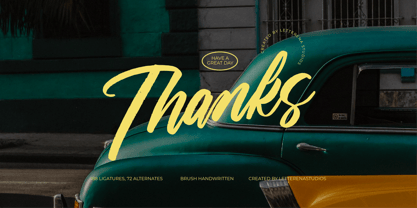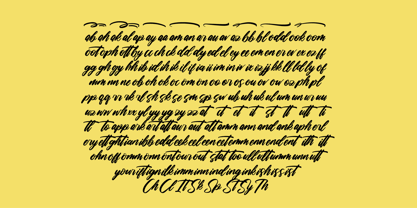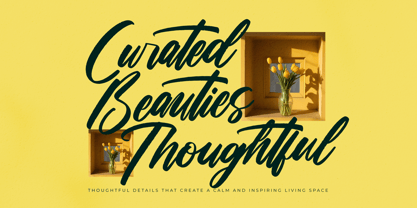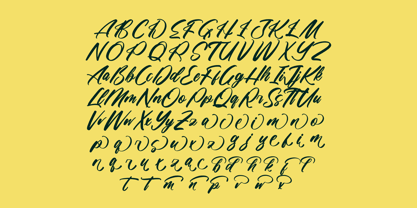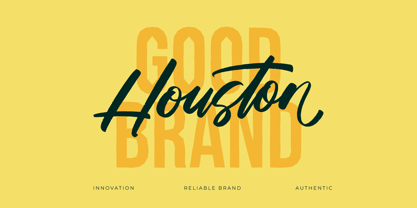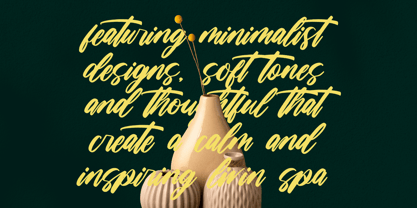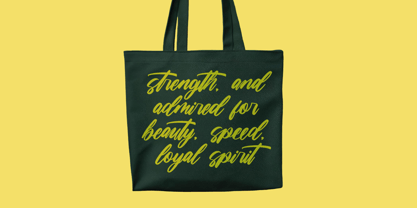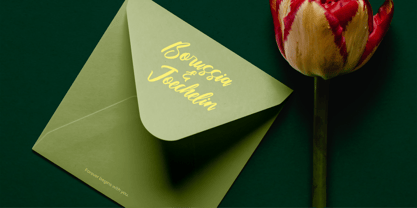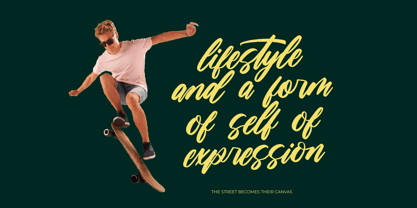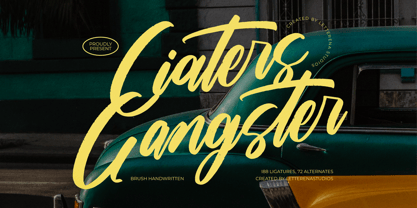
Ciaters Gangster
by Letterena Studios
The Ciaters Gangster Font Family was designed by Heru Utama Putra and published by Letterena Studios. Ciaters Gangster contains 2 styles and family package options. More about this family
Ciaters Gangster - Brush Handwritten Font,from Letterena, is a Luxury Script font, suitable for any projects such as: logos, branding projects, homeware designs, product packaging, mugs, quotes, posters, shopping bags, t-shirts, book covers, name card, invitation cards, greeting cards, label, photography, watermark, special events, and all your other luxury and beautiful projects that need a Luxury Script taste.